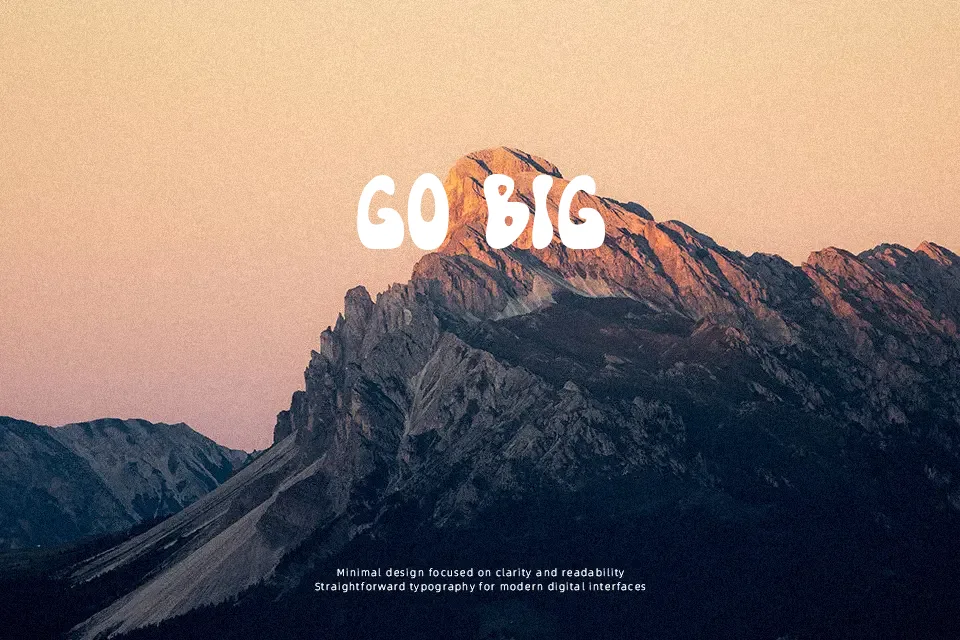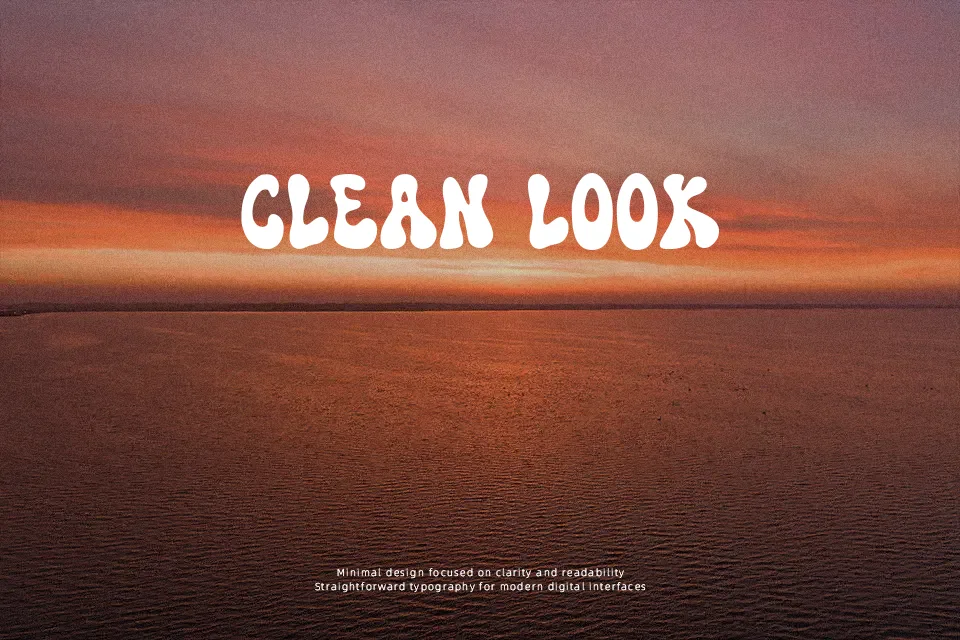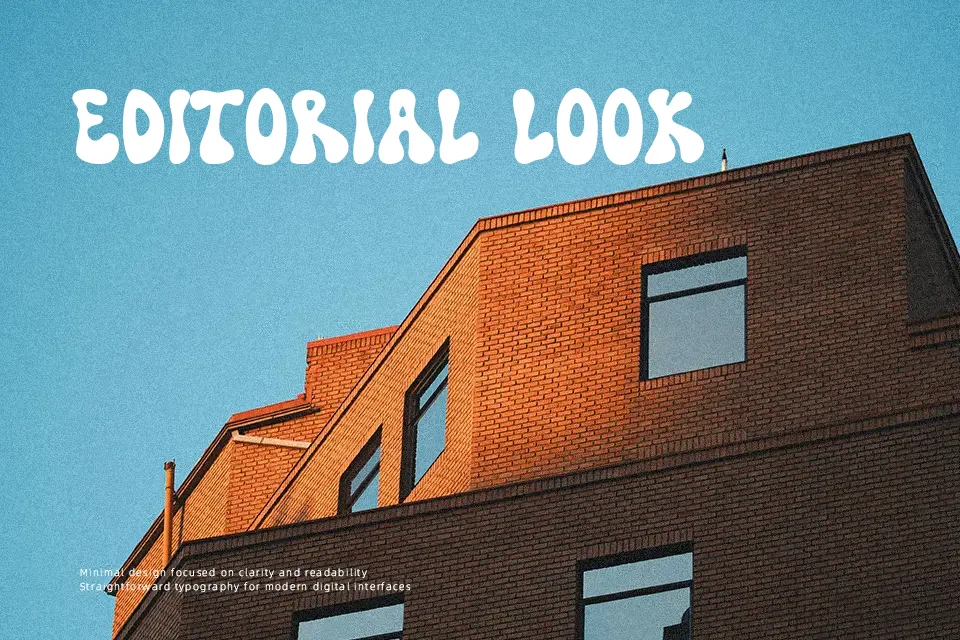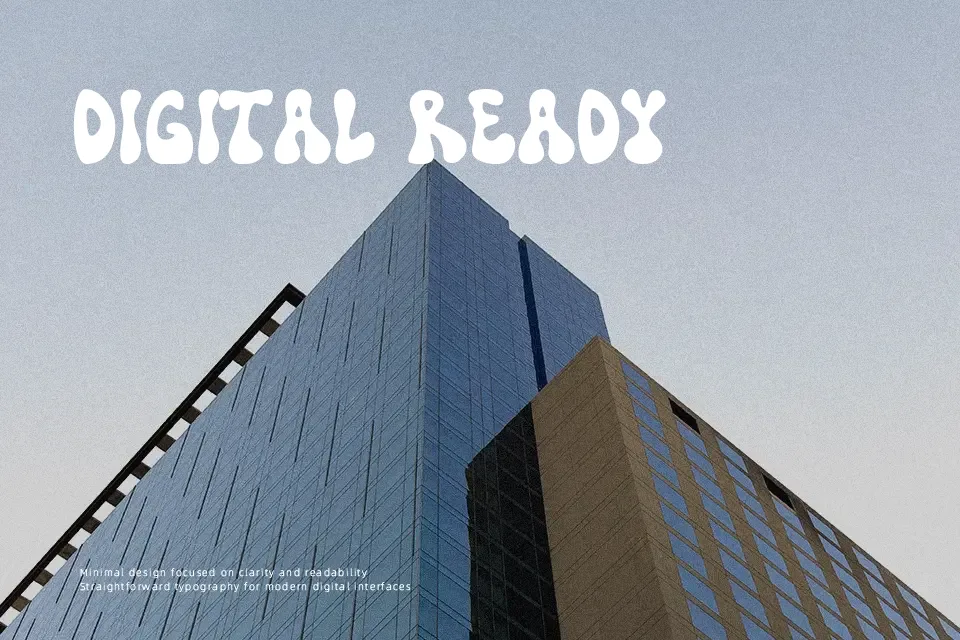
TF Funky Fusion Font
TF Funky Fusion Font relies on ultra-bold display proportions defined by puffy curves, flared terminals, and tight letter spacing reminiscent of vintage counterculture graphics. The heavy stroke weights dominate the visual field, while narrow counters and compact negative spaces create an intense rhythm suited for large banners, record sleeves, and thematic packaging. Uppercase and lowercase forms maintain uniform heaviness, keeping short titles punchy and cohesive. However, dense outlines and constricted internal apertures significantly reduce legibility across extended reading materials. The typeface works best when restricted to prominent headlines where its expressive, organic weight can command full attention.
Best For: music festival posters, retro vinyl record sleeves, streetwear apparel graphics, psychedelic product packaging
Not Ideal For: continuous body text, mobile interface labels, dense editorial paragraphs, formal business documents
Perfect for headline, logo, and music, with a bold and decorative style.